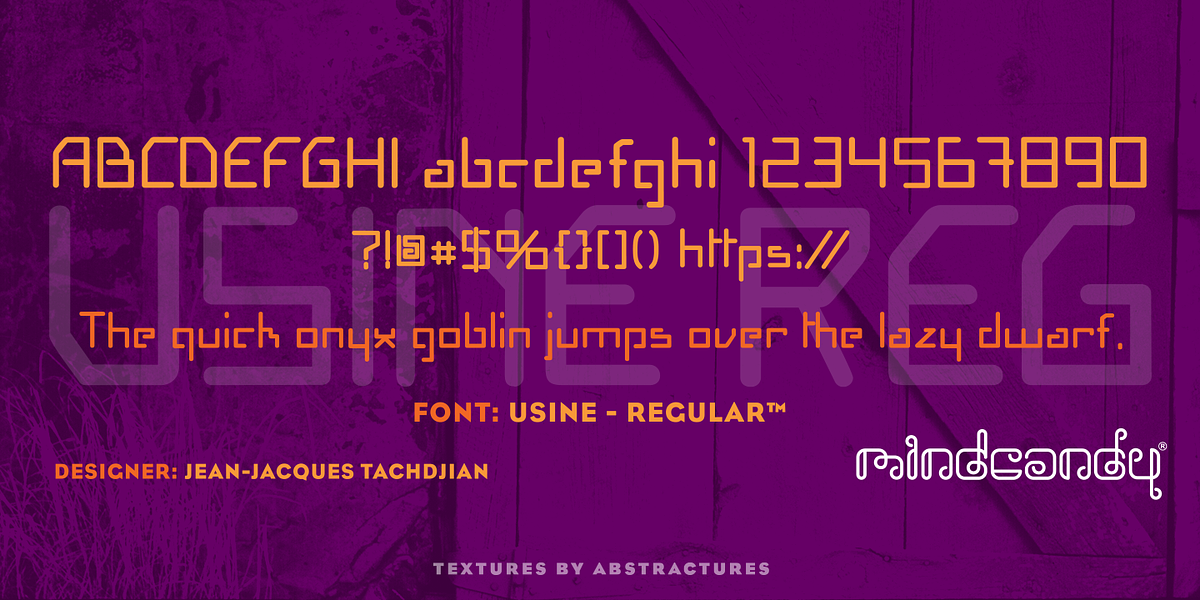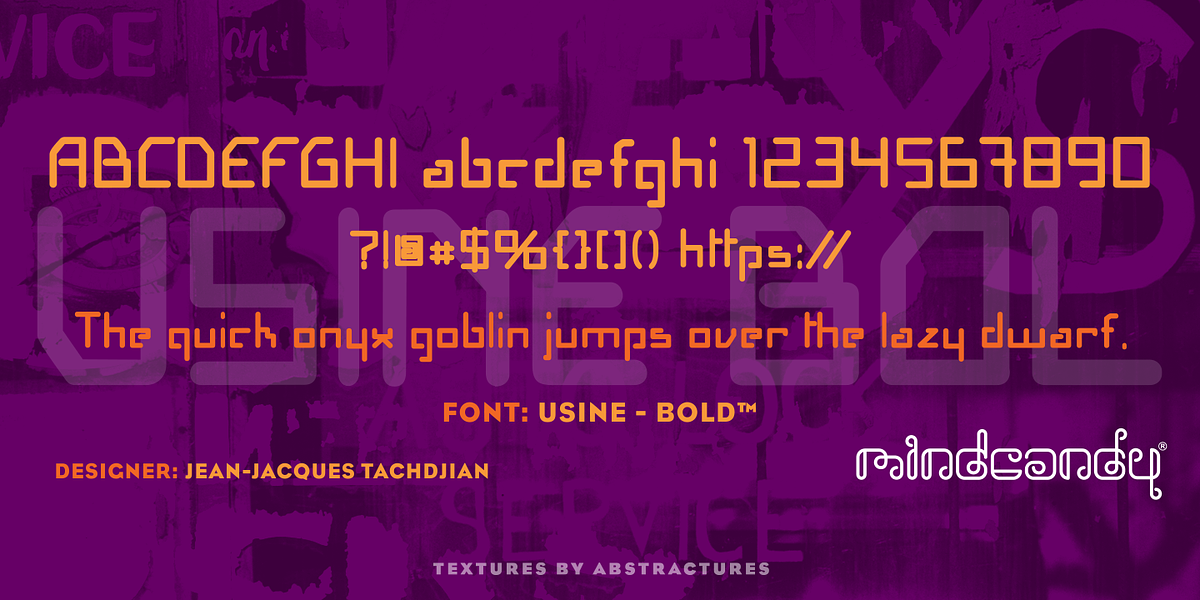
Usine™
This geometric sans-serif font evokes a strong sense of retro futurism, reminiscent of techno and science fiction aesthetics. Its clean lines and bold shapes make it suitable for eye-catching headlines, branding elements, and posters seeking a vintage technological feel.